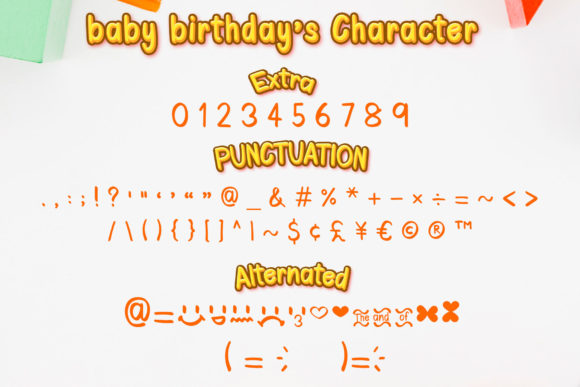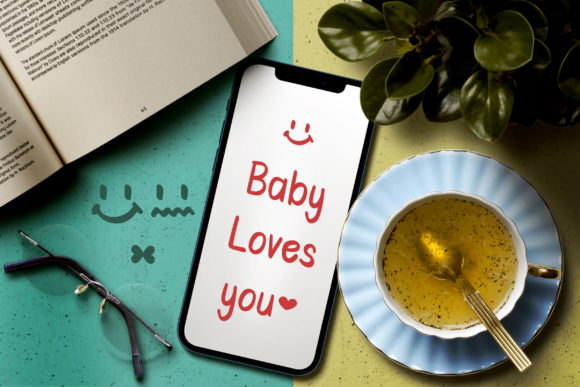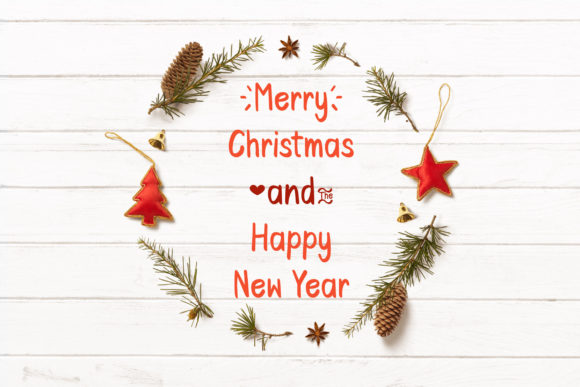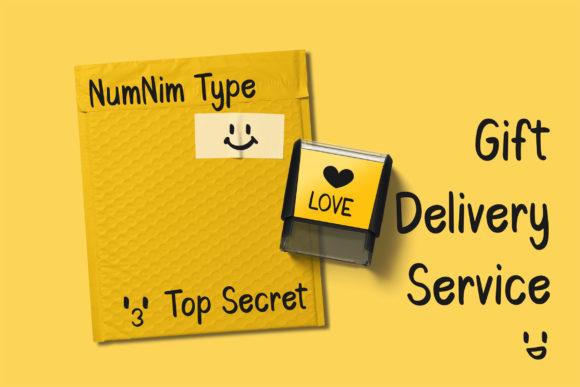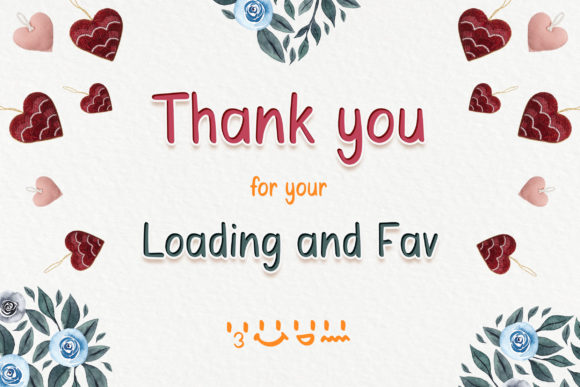
Baby Birthday Font: The Perfect Addition to Your Design Arsenal
Are you a designer or crafter looking for a font that captures the essence of joy and innocence? Look no further than the Baby Birthday font! This delightful handwritten font is perfect for creating holiday letters, children-themed designs, and more. In this article, we’ll dive into the world of Baby Birthday font and explore its features, uses, and benefits.
What is Baby Birthday Font?
Baby Birthday font is a joyful and delicate handwritten font that is sure to bring a smile to your face. With its cute doodle elements and playful vibe, this font is perfect for designs that require a touch of whimsy and fun. The font’s hand-drawn nature gives it a personal and intimate feel, making it ideal for projects that require a human touch.
Key Features of Baby Birthday Font
- Handwritten style: Baby Birthday font boasts a beautiful, handwritten style that is both elegant and playful.
- Cute doodle elements: The font features adorable doodle elements that add a touch of fun and whimsy to your designs.
- Delicate and joyful: The font’s delicate and joyful nature makes it perfect for creating designs that require a lighthearted and uplifting feel.
- Perfect for children-themed designs: The font’s playful and innocent vibe makes it ideal for designs that cater to children or require a youthful feel.
Uses of Baby Birthday Font
Baby Birthday font is a versatile font that can be used in a variety of design projects, including:
- Holiday letters: The font’s joyful and festive nature makes it perfect for creating holiday letters that are sure to impress.
- Children-themed designs: The font’s playful and innocent vibe makes it ideal for designs that cater to children, such as birthday cards, party invitations, and kids’ party decorations.
- Party invitations: The font’s whimsical and fun nature makes it perfect for creating party invitations that are sure to get your guests excited.
- Social media graphics: The font’s playful and eye-catching nature makes it ideal for creating social media graphics that require a touch of fun and personality.
Benefits of Using Baby Birthday Font
Using Baby Birthday font in your designs comes with a range of benefits, including:
- Unique and eye-catching designs: The font’s playful and whimsical nature helps create designs that are sure to stand out from the crowd.
- Emotional connection: The font’s hand-drawn nature and innocent vibe help create an emotional connection with your audience, making your designs more relatable and engaging.
- Time-saving: The font’s versatility and ease of use save you time and effort in creating designs that require a touch of fun and whimsy.
Tips for Using Baby Birthday Font
To get the most out of Baby Birthday font, here are some tips to keep in mind:
- Combine with bright colors: The font’s delicate nature looks stunning when paired with bright and bold colors.
- Experiment with font sizes: The font’s playful nature allows for experimentation with different font sizes to create visual interest and hierarchy.
- Use in combination with other fonts: The font’s unique nature makes it perfect for combining with other fonts to create a visually appealing and engaging design.
In conclusion, Baby Birthday font is a delightful handwritten font that is sure to bring joy and whimsy to your designs. With its cute doodle elements, delicate nature, and playful vibe, this font is perfect for holiday letters, children-themed designs, and more. Whether you’re a designer or crafter, Baby Birthday font is a great addition to your design arsenal. So why not give it a try and see how it can elevate your designs to the next level?